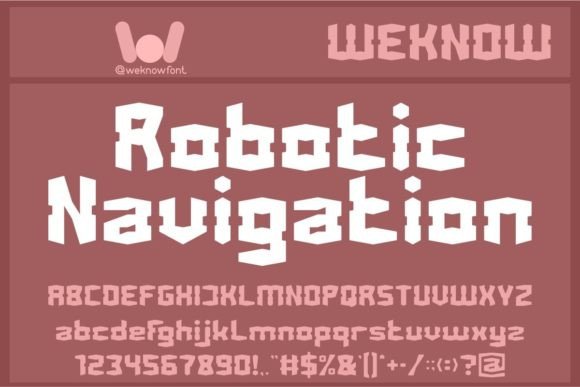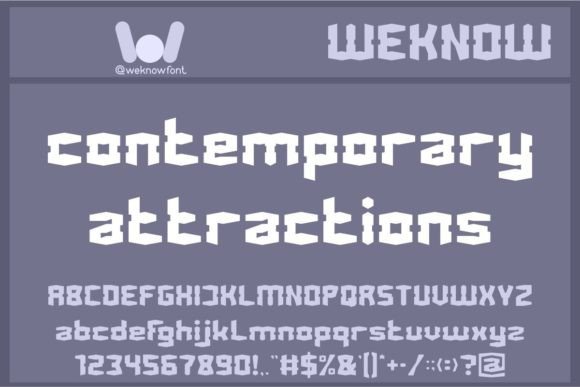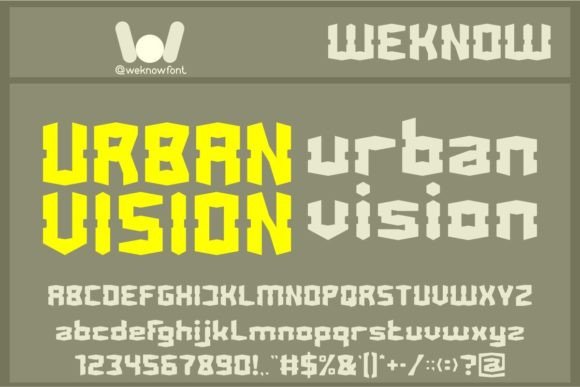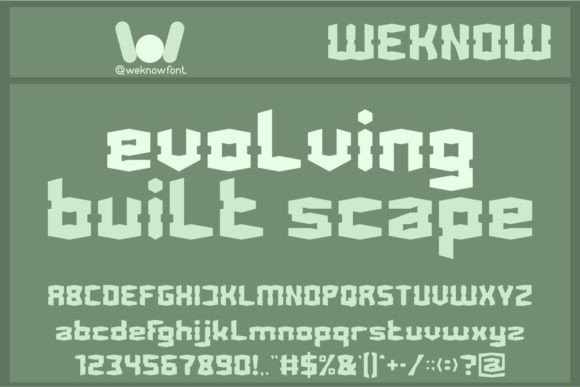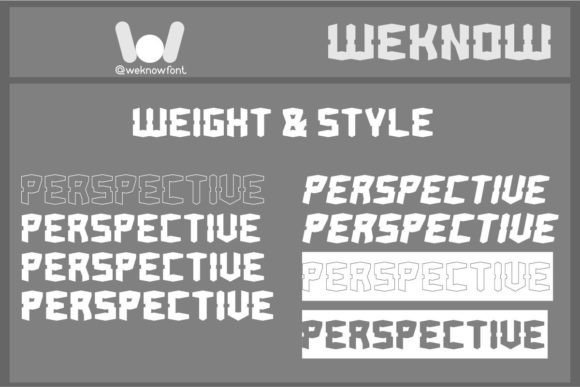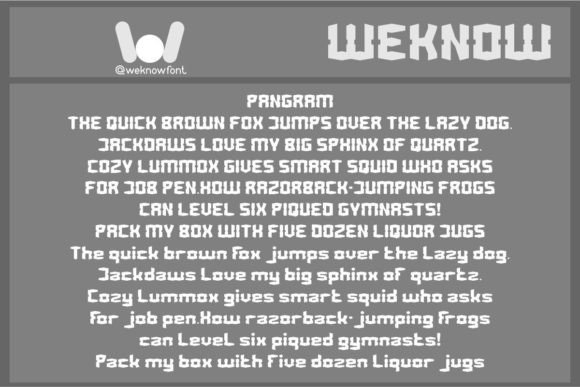
Introduction to Perspective Font Font
Fonts play a crucial role in design, and the Perspective Font font is a typeface that brings both character and versatility to any project. Whether you’re working on a branding project, a website, or a print design, the Perspective Font font offers a unique style that can elevate your work.
Introducing βPerpectiveβ, the font wearing the future on its sleeve.
Born from a fusion of high-tech aesthetics and robotic precision, Perpective radiates a techno sci-fi feel This font emerges as a tribute to the future, with urban sophistication designed to fill the architectural spaces of modern cityscapes.
Key Features of Perspective Font Font
Why Choose Perspective Font Font?
The Perspective Font font is more than just a typeface β it’s a design tool that helps you communicate your message with style and clarity. Its unique character set and versatile design make it suitable for a wide range of applications, from elegant invitations to bold headlines.
With its carefully crafted letterforms and balanced proportions, the Perspective Font font ensures readability and visual appeal across all mediums.
What makes Perspective Font font special?
The Perspective Font font stands out with its unique design, exceptional readability, and versatility across various design applications.